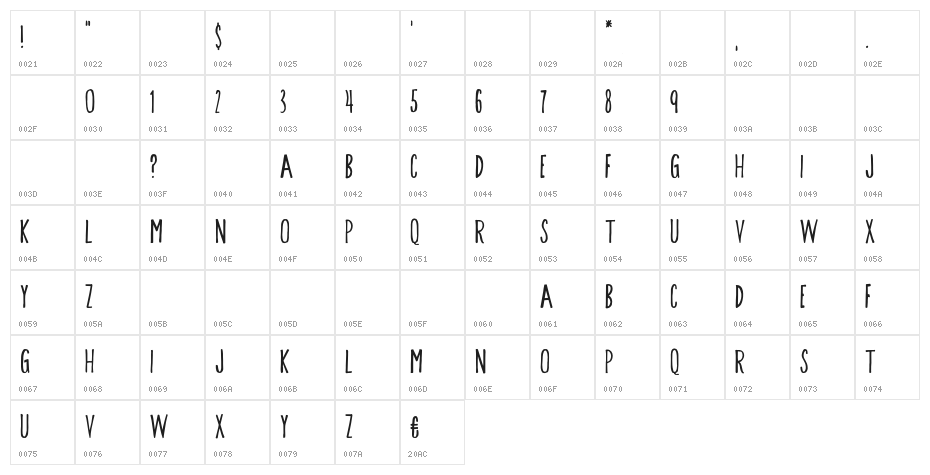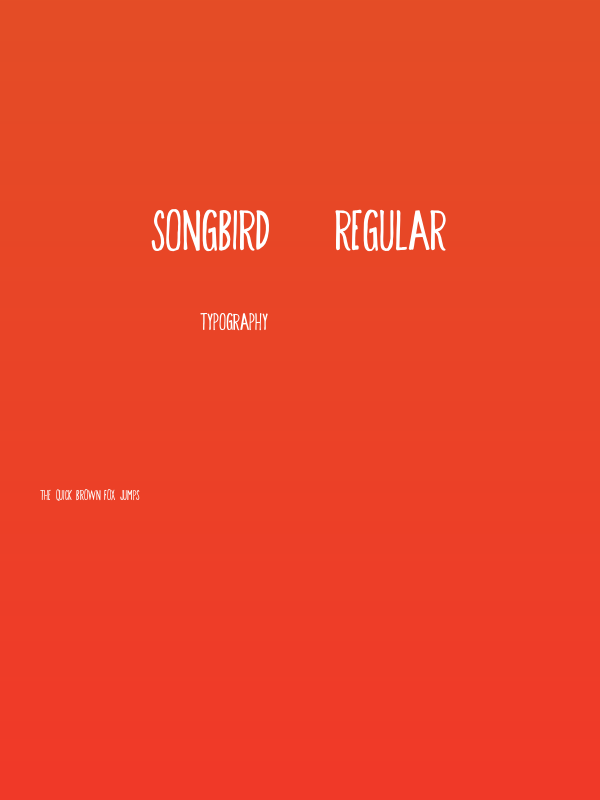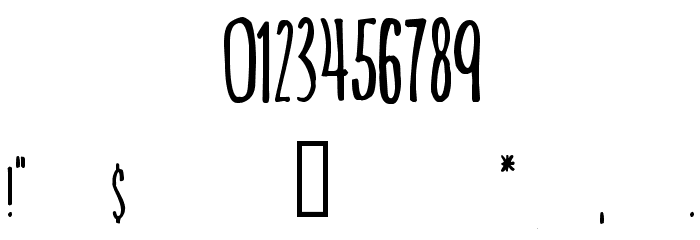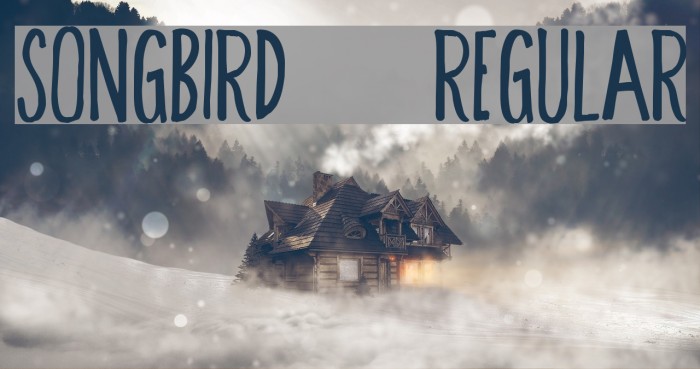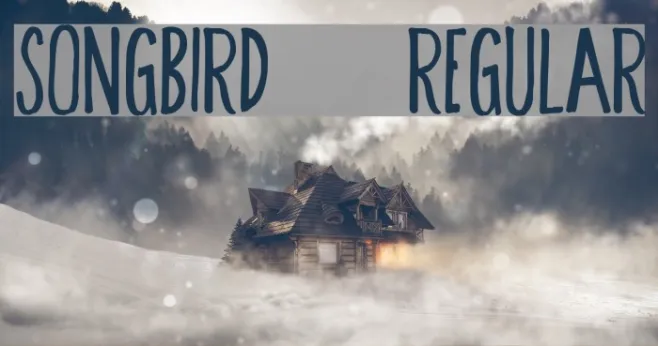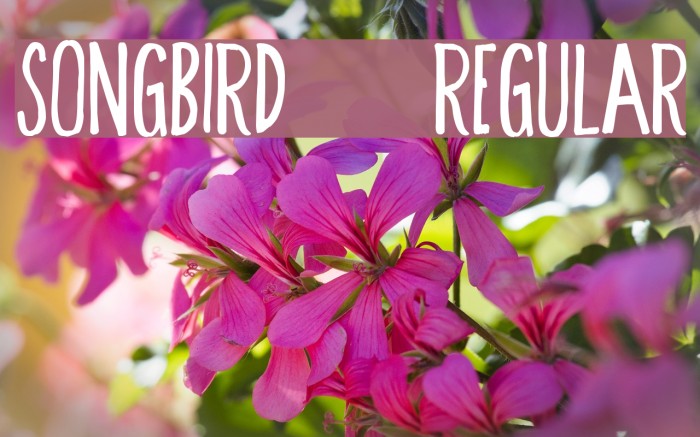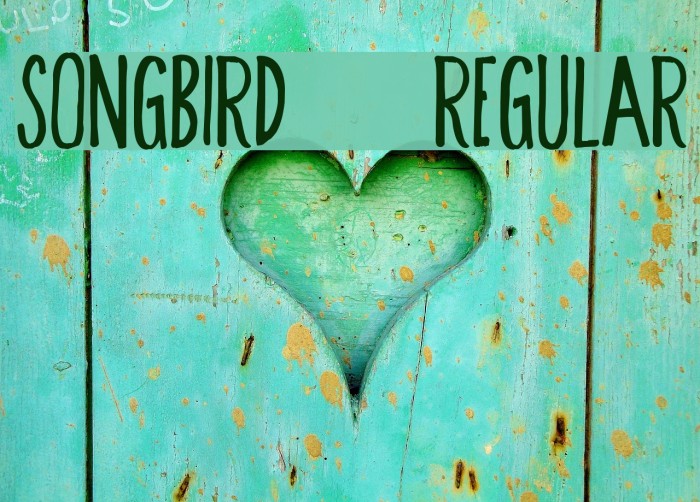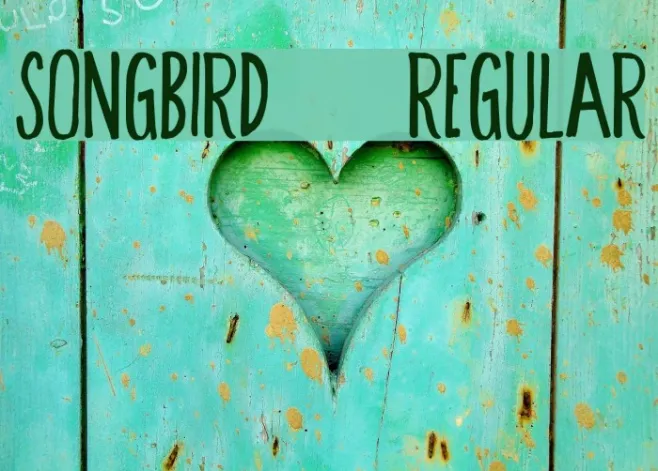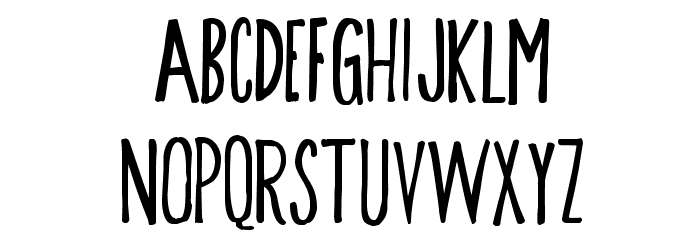
Songbird-Regular Font
Songbird-Regular Description
This font features a playful and slightly whimsical design, characterized by its tall, narrow letterforms and subtle irregularities that give it a hand-drawn appearance. The strokes are consistent in width, providing a uniform look across all characters. The uppercase letters are bold and prominent, while the lowercase letters maintain a similar height, creating a cohesive and balanced aesthetic. The numerals are clear and easy to read, matching the style of the alphabet. Special characters are included, maintaining the same playful and informal style. This font is ideal for projects that require a friendly and approachable feel.
| Proposed Projects | Great for children's books, greeting cards, posters, and playful branding. |